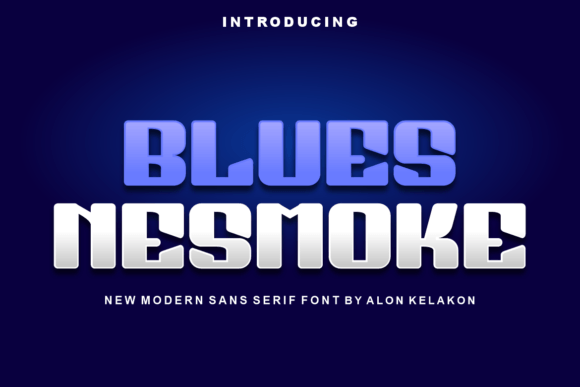
Introducing Blues Nesmoke Font: The Perfect Blend of Cool and Casual
In the world of typography, fonts play a crucial role in conveying the tone and personality of a brand or design. With the numerous font options available, it can be challenging to find the perfect one that stands out from the rest. However, if you’re looking for a cool and assertive sans serif font that still maintains a casual touch, look no further than Blues Nesmoke Font. In this article, we’ll dive into the features and benefits of Blues Nesmoke Font and explore why it’s a great asset to your font collection.
What is Blues Nesmoke Font?
Blues Nesmoke Font is a modern sans serif font designed to make a statement. Its clean and sleek lines give it a cool and assertive personality, making it perfect for designs that require a bold and confident look. Despite its assertiveness, Blues Nesmoke Font still maintains a casual touch, making it versatile and suitable for various design projects.
Key Features of Blues Nesmoke Font
- Cool and Assertive Personality: Blues Nesmoke Font exudes a sense of confidence and coolness, making it perfect for designs that require a bold statement.
- Clean and Sleek Lines: The font’s clean and sleek lines give it a modern and sophisticated look that’s perfect for contemporary designs.
- Versatile and Casual: Despite its assertiveness, Blues Nesmoke Font still maintains a casual touch, making it suitable for various design projects, from branding and advertising to packaging and digital media.
- Sans Serif Design: The font’s sans serif design makes it easy to read and perfect for digital media, where legibility is crucial.
Benefits of Using Blues Nesmoke Font
Blues Nesmoke Font offers several benefits that make it a great asset to your font collection. Here are some of the advantages of using this font:
- Elevate Your Designs: Blues Nesmoke Font has the potential to elevate any creation, making it perfect for designers who want to take their designs to the next level.
- Perfect for Various Design Projects: The font’s versatility makes it suitable for various design projects, from branding and advertising to packaging and digital media.
- Easy to Read: The font’s clean and sleek lines make it easy to read, even at small sizes, making it perfect for digital media.
- Unique and Memorable: Blues Nesmoke Font’s cool and assertive personality makes it unique and memorable, helping your brand or design stand out from the rest.
Use Cases for Blues Nesmoke Font
Blues Nesmoke Font is a versatile font that can be used in various design projects. Here are some use cases where this font can shine:
- Branding and Logo Design: Blues Nesmoke Font’s cool and assertive personality makes it perfect for branding and logo design, helping your brand stand out from the rest.
- Advertising and Marketing: The font’s clean and sleek lines make it perfect for advertising and marketing materials, such as brochures, flyers, and posters.
- Packaging Design: Blues Nesmoke Font’s versatility makes it suitable for packaging design, where it can help your product stand out on store shelves.
- Digital Media: The font’s sans serif design and clean lines make it perfect for digital media, such as websites, social media graphics, and email marketing campaigns.
Tips for Using Blues Nesmoke Font
To get the most out of Blues Nesmoke Font, here are some tips to keep in mind:
- Use it Boldly: Blues Nesmoke Font’s cool and assertive personality shines when used boldly, so don’t be afraid to experiment with different font sizes and weights.
- Pair it with Other Fonts: The font’s versatility makes it easy to pair with other fonts, so experiment with different font combinations to find the perfect look for your design.
- Keep it Legible: While Blues Nesmoke Font is easy to read, make sure to keep it legible by using a font size that’s large enough to read comfortably.
In conclusion, Blues Nesmoke Font is a cool and assertive sans serif font that still maintains a casual touch. Its versatility, clean lines, and unique personality make it a great asset to your font collection, perfect for various design projects. Whether you’re a designer, marketer, or business owner, Blues Nesmoke Font has the potential to elevate any creation and help your brand or design stand out from the rest.